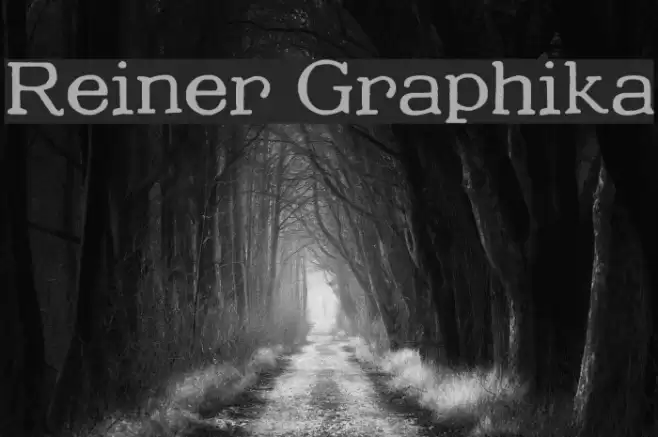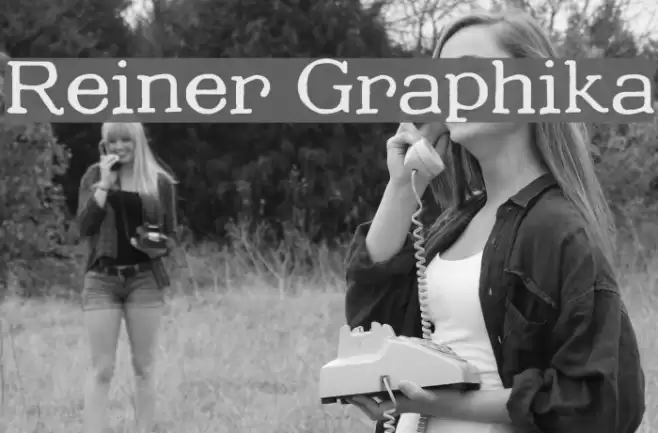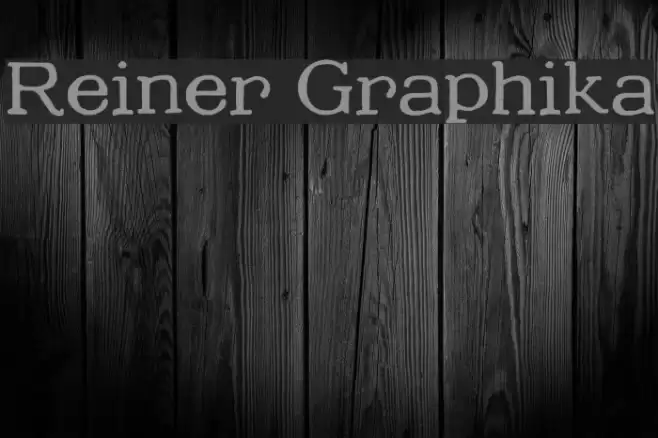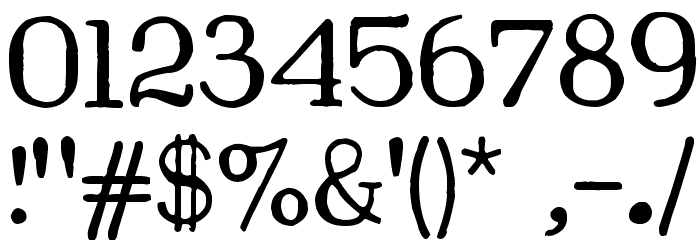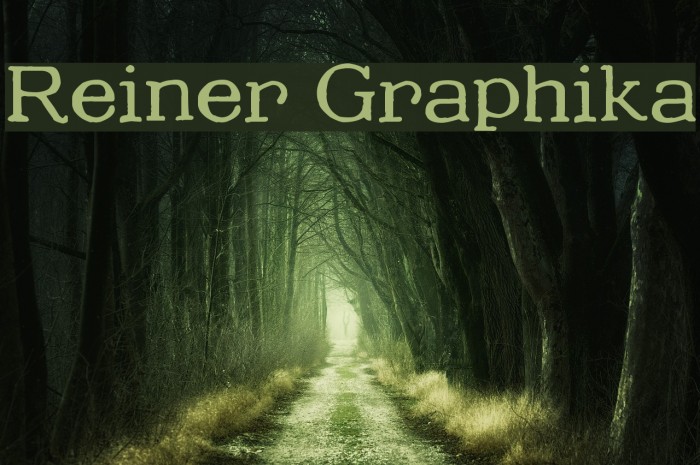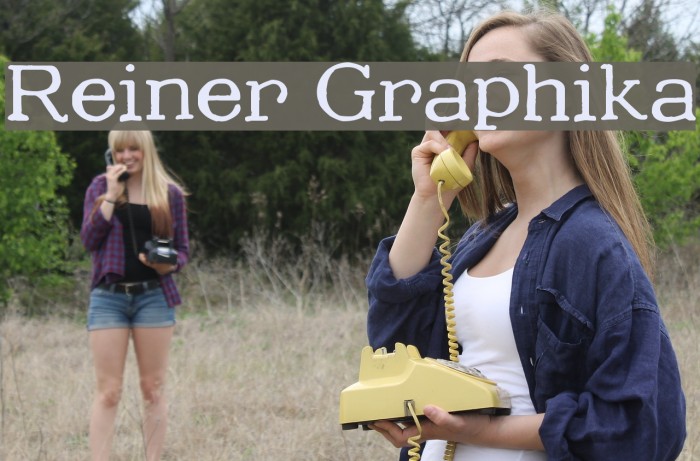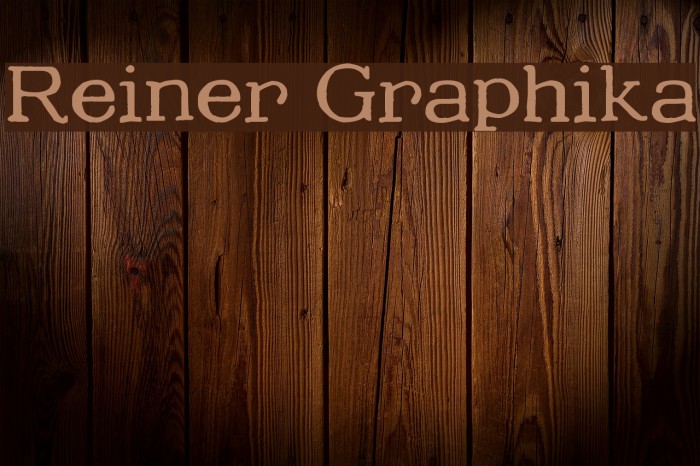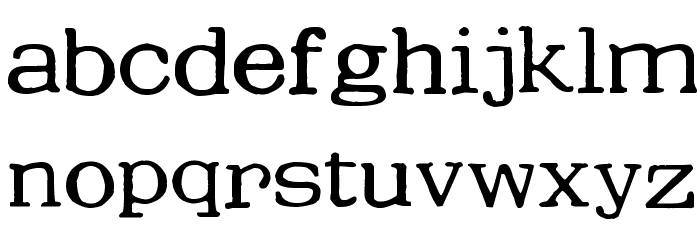
Reiner Graphika
This font features a classic serif style with a slightly distressed and textured appearance, giving it a vintage and handcrafted feel. The uppercase letters are bold and prominent, while the lowercase letters maintain a consistent style with slightly rounded edges. The numerals are clear and easy to read, with a uniform height that matches the uppercase letters. Special characters are well-defined, maintaining the overall aesthetic of the font. The serifs are pronounced, adding to the traditional look, yet the texture provides a unique twist that makes it suitable for creative projects.
A vintage serif font with a textured, handcrafted appearance.
- Proposed Projects: Ideal for branding, packaging, posters, and any project requiring a vintage or handcrafted look.
- Category: Serif
- Overall Style: Vintage